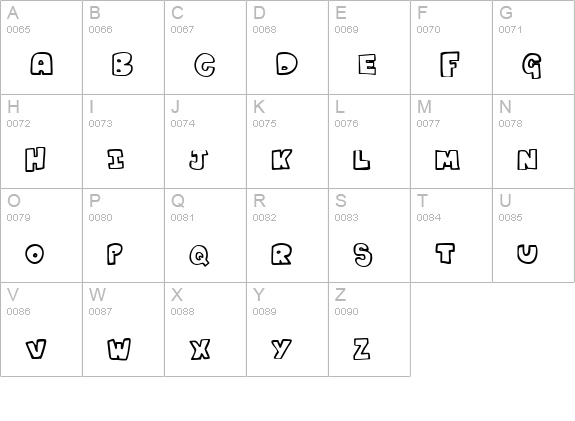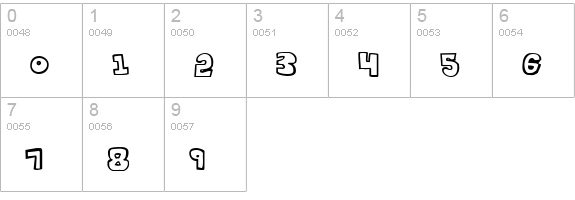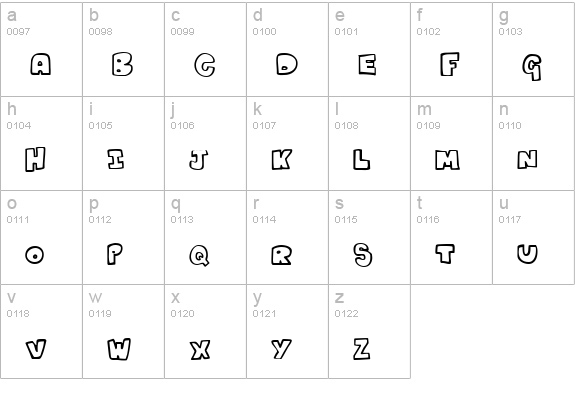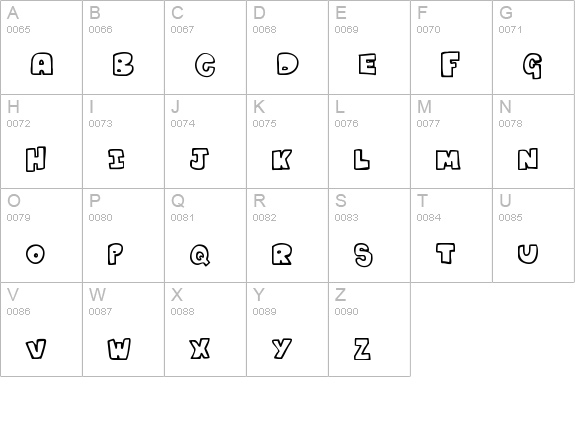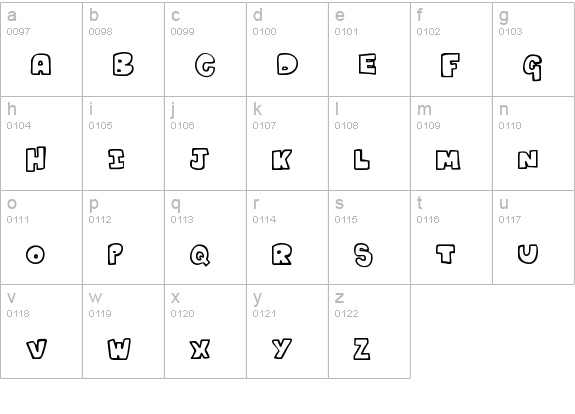
Introducing Kartoons font, a whimsical and playful typeface that will bring a touch of fun to your designs. This unique font features charming characters and quirky elements that will add a delightful twist to any project. Whether you're working on a children's book, party invitation, or branding materials, Kartoons font is sure to stand out and captivate your audience. The best part? Kartoons font is completely free to download at FontsMarket.com. This means you can easily access this delightful font and start using it in your creative endeavors without any cost. Don't miss out on the opportunity to add a dose of cheerfulness to your designs with the Kartoons font – download it today and let your creativity soar!